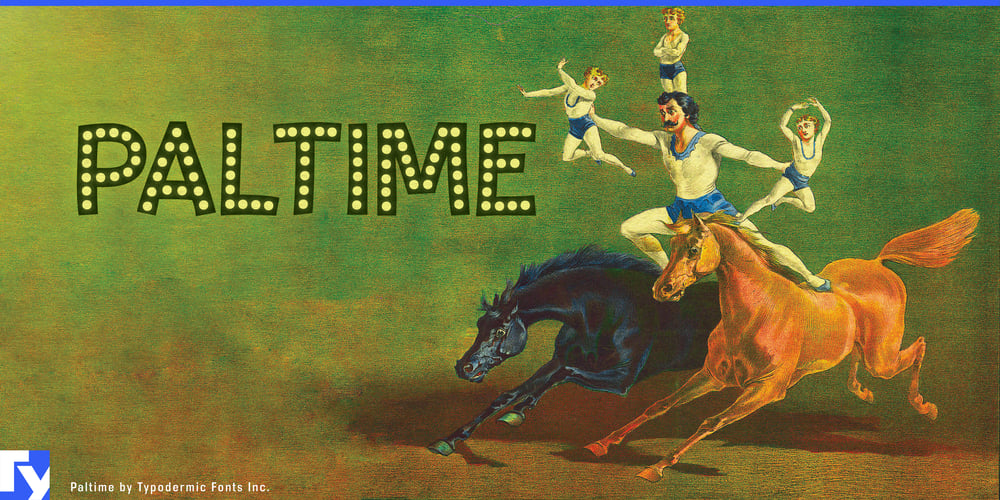
Paltime Font Family was designed by Ray Larabie and published by Typodermic. Paltime contains 7 styles and family package options. Ladies and gentlemen, step right up to the typographic spectacle of the century! Paltime is here to dazzle and delight your senses. This is a full-blown visual extravaganza that will transform your designs into a carnival of creativity!Paltime struts onto the stage as an all-caps display typeface, but don’t let its uppercase bravado fool you. This typeface is a master of disguise, a chameleon of the design world. Its marquee lights style isn’t just eye-catching—it’s hypnotic, drawing your audience in like moths to a flame. But wait, there’s more! Paltime isn’t content with being a one-trick pony. Oh no, this typeface is a veritable three-ring circus of design possibilities. Layer upon layer of dots, hearts, and stars can be stacked atop the solid base, creating a kaleidoscope of color that would make even the most jaded ringmaster gasp in awe. It’s not just type—it’s typographic alchemy!For those moments when subtlety is key (yes, even circus barkers have their quiet days), Paltime’s got you covered. The Marquee, Love, and Glam styles stand proudly on their own, ready to command attention in monochrome glory. It’s like having a whole troupe of performers at your fingertips, each one ready to steal the show. And let’s not forget Paltime’s linguistic acrobatics! This typeface speaks more languages than a worldly fortune teller. From Afrikaans to Zulu, Paltime ensures your message will be the talk of the town in countless corners of the globe.So, designers of the world, why settle for the mundane when you can have the magnificent? Why whisper when you can shout from the rooftops? Paltime isn’t just a font—it’s your ticket to the greatest show on earth, right there on your screen. Get Paltime today and watch as your designs transform from mere documents into dazzling spectacles.